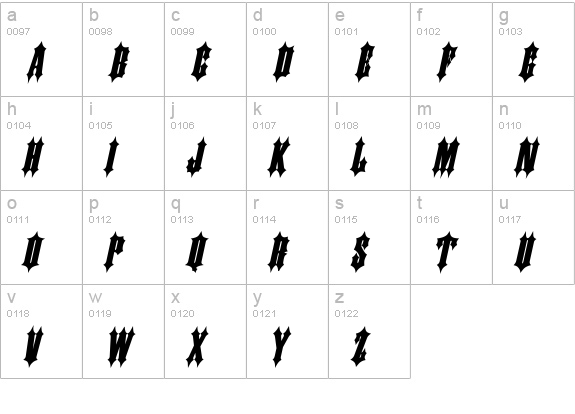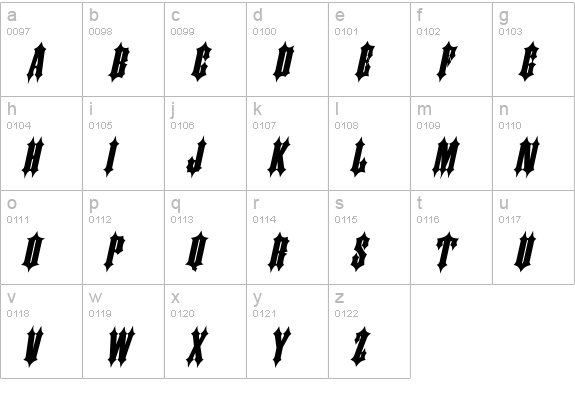
Ironwork Wide BoldItalic Font Details
Ironwork Wide BoldItalic is a distinctive, extended-width variant in the Ironwork typeface family \xE2\x80\x94 well suited to design and typography projects.
Ironwork Wide BoldItalic font is a stunning and versatile typeface that exudes strength and elegance. With its bold and italic design, it captures attention and adds a touch of sophistication to any project. This font is perfect for creating eye-catching headlines, striking logos, and impactful designs. Its wide and bold letterforms command attention and make a bold statement. The italic style adds a sense of fluidity and movement, giving your text a dynamic and modern look. Ironwork Wide BoldItalic font is not only visually appealing but also highly functional. Its legible and well-defined characters ensure readability, even at smaller sizes. Whether you are designing for print or digital media, this font will deliver exceptional results. The best part is that Ironwork Wide BoldItalic font is free. Yes, you read that right! It is freely available to download at FontsMarket.com. This means that you can enhance your designs without breaking the bank. With just a few clicks, you can access this incredible font and take your design projects to the next level. So why wait? Download Ironwork Wide BoldItalic font today and make your designs stand out. Whether you are a professional designer or a creative enthusiast, this font will undoubtedly become a valuable addition to your font collection. Don't miss out on the opportunity to elevate your design game with this exquisite and freely accessible font.